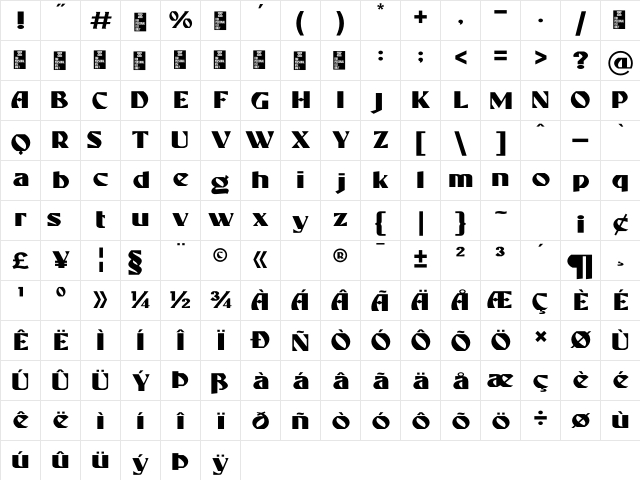
ROSEFORD DEMO Regular
| Foundry | ZEALAB FONTS DIVISION |
| Designer | REZA RASENDA |
Design Context for ROSEFORD DEMO Typeface
ROSEFORD DEMO takes a measured approach to typography — its balanced proportions and neutral character make it a reliable workhorse for both digital and print work.